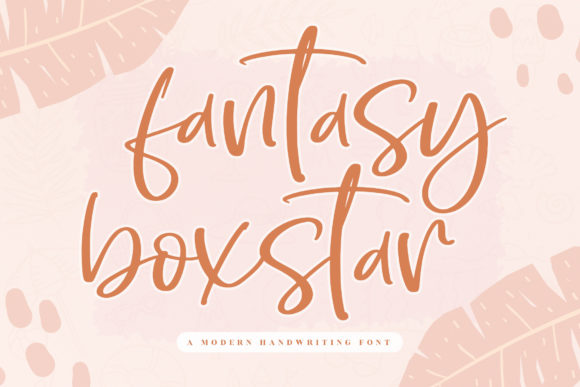
Welcome to the whimsical world of Fantasy Boxstar, a script font that captures the magic of dreams. Its delicate strokes dance across your designs, leaving a trail of enchantment in their wake. Let your imagination soar as you explore the endless possibilities of this enchanting font.
Picture yourself crafting a captivating logo, where the swirling lines of Fantasy Boxstar intertwine to create a symbol that speaks to the heart. Envision the beauty of a branding project, where Fantasy Boxstar's graceful curves add a touch of ethereal elegance. Let your creativity shine as you design labels that whisper stories, and as you create watermarks that leave an unforgettable mark on your work.
With Fantasy Boxstar, special events transform into extraordinary experiences. Wedding invitations come alive with the font's graceful strokes, carrying the promise of love and joy. Birthday cards burst with cheerfulness, their messages written in Fantasy Boxstar's playful script. And as you embark on other creative endeavors, Fantasy Boxstar becomes your constant companion, adding a touch of wonder to every project.
Let Fantasy Boxstar be the key that unlocks your creative potential. With its PUA encoding, you'll have effortless access to a treasure trove of glyphs and swashes, allowing you to add intricate details and flourishes to your designs. Make your mark on the world, one inspired creation at a time, with Fantasy Boxstar by your side.